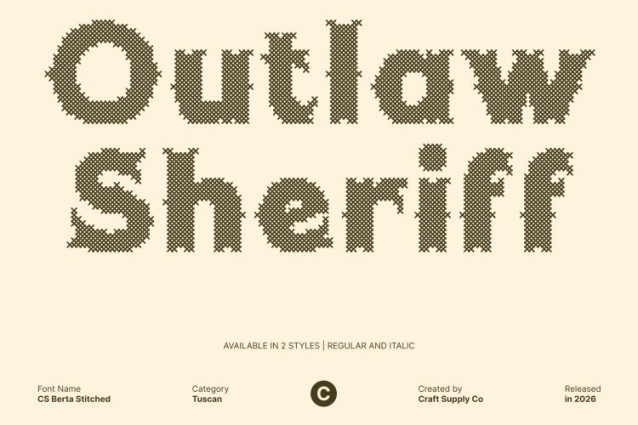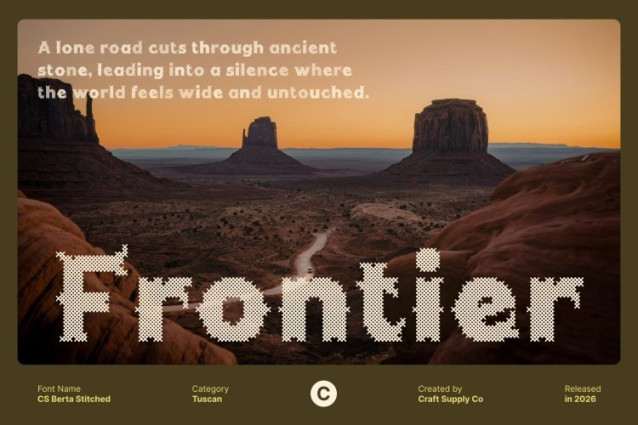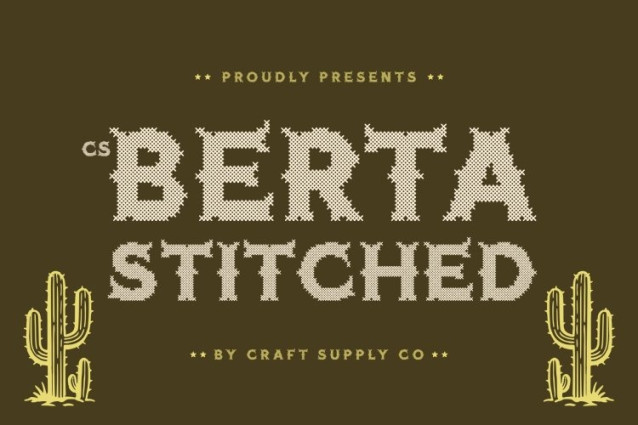
CS Berta Stitched Font
CS Berta Stitched Font – This is a striking display serif font inspired by the classic Tuscan typographic style. Featuring bold decorative serifs, dramatic forms, and intricate detailing. Enhanced with a stitched style inspired by thread sewn or embroidered on fabric, this version introduces a handcrafted texture that adds warmth and tactile character while maintaining the font’s bold, nostalgic appeal.
Ornamental Letterforms with Embossed Stitch Detail
The distinctive Tuscan structure of this font includes sharp, pointed serifs and decorative cross-line accents that give each letter a strong and memorable presence. A cross-shaped stitch pattern overlays the letterforms, creating an embossed, fabric-like texture that enriches the design with depth and visual interest.
Bold Vintage Personality with Retro Energy
This font embodies the charm of old-world typography with its confident shapes and decorative rhythm. The combination of Tuscan-style ornamentation and stitched texture creates a layered visual identity that feels both nostalgic and handcrafted, making the font lively, expressive, and visually engaging.
Perfect for Retro Branding and Vintage Designs
This is ideal for posters, logos, packaging, signage, and branding projects that celebrate vintage aesthetics. Its bold Tuscan character and stitched craftsmanship make it especially suitable for retro-themed graphics, heritage-inspired visuals, and creative promotional designs that aim to capture the timeless charm of classic typography.